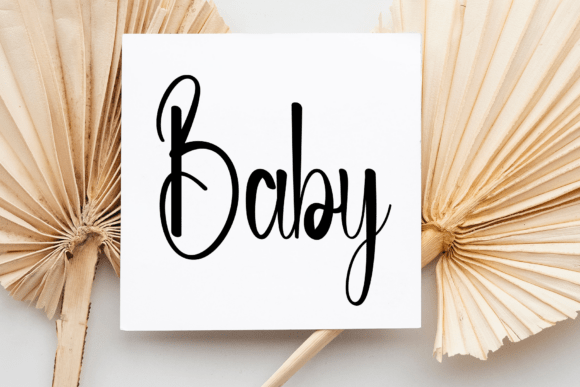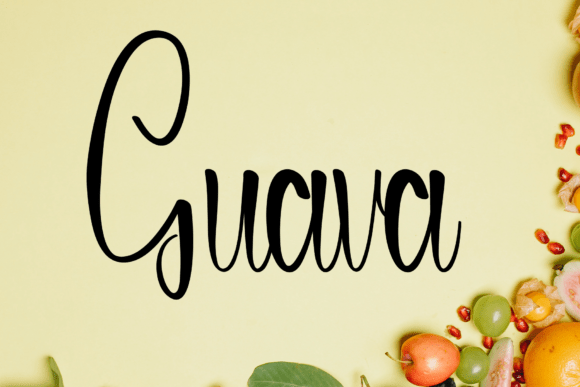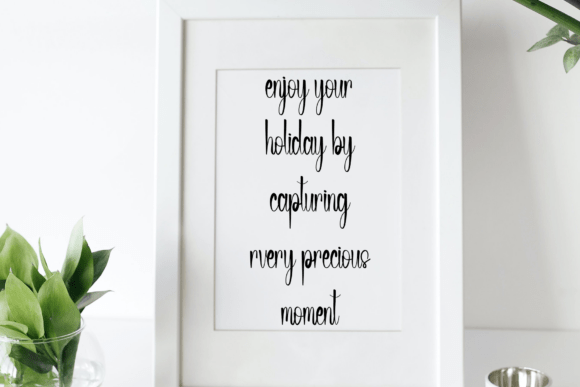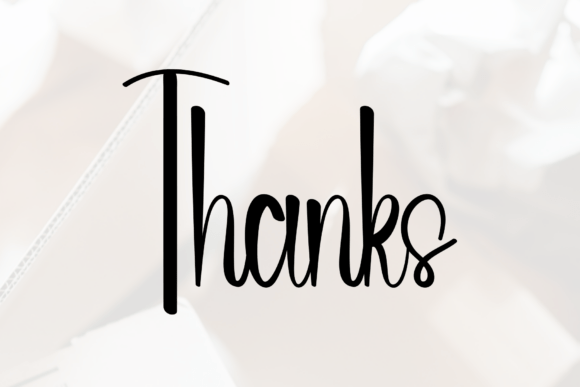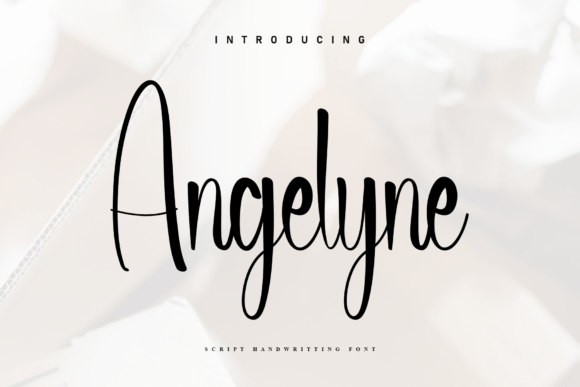
Discover the Charm of Angelyne Font: Elevate Your Designs with a Touch of Handwritten Elegance
Are you on the hunt for a font that adds a personal touch to your designs? Look no further than Angelyne Font, a charming handwritten font that embodies the essence of heartfelt perfection. With its smooth strokes and organic lines, Angelyne evokes a relaxed atmosphere, making it an ideal choice for a wide range of design projects. Whether you’re working on branding, invitations, or social media graphics, Angelyne Font is sure to bring a touch of elegance and sophistication to your creations.
The Characteristics of Angelyne Font
Angelyne Font boasts a unique set of characteristics that set it apart from other fonts. Its smooth, flowing strokes and organic lines give it a natural, effortless feel that’s perfect for designs that require a personal touch. The font’s charming and whimsical nature makes it an excellent choice for projects that need to convey a sense of warmth and approachability.
Angelyne Font’s versatility makes it suitable for a wide range of design projects. Here are just a few examples of how you can use this beautiful font:
• Branding: Use Angelyne Font to create a unique and memorable brand identity. Its elegant and sophisticated feel makes it perfect for logos, business cards, and other marketing materials.
• Invitations: Add a touch of whimsy and charm to your invitations with Angelyne Font. Whether you’re planning a wedding, birthday party, or baby shower, this font is sure to make your invitations stand out.
• Social Media Graphics: Use Angelyne Font to create eye-catching social media graphics that showcase your brand’s personality. From Facebook posts to Instagram stories, this font is sure to help you connect with your audience.
Why Choose Angelyne Font?
With so many fonts to choose from, why should you choose Angelyne Font? Here are just a few reasons why designers and crafters love this beautiful font:
• Unique and Memorable: Angelyne Font’s unique and charming nature makes it a standout choice for designers. Your projects are sure to be remembered with this font.
• Easy to Read: Despite its elegant and sophisticated feel, Angelyne Font is easy to read, making it perfect for body text and other applications where readability is key.
• Highly Versatile: Angelyne Font can be used for a wide range of design projects, from branding and invitations to social media graphics and more.
Tips for Using Angelyne Font
Here are a few tips for getting the most out of Angelyne Font:
• Pair it with Other Fonts: Angelyne Font pairs well with other fonts, especially those with a bold or sans-serif feel. Experiment with different font combinations to find the perfect look for your project.
• Use it for Headings and Titles: Angelyne Font’s elegant and sophisticated feel makes it perfect for headings and titles. Use it to add a touch of whimsy and charm to your designs.
• Experiment with Colors: Angelyne Font looks great in a variety of colors, from bold and bright to soft and pastel. Experiment with different colors to find the perfect look for your project.
Angelyne Font is a charming handwritten font that’s perfect for designers and crafters looking to add a touch of elegance and sophistication to their projects. With its smooth strokes and organic lines, Angelyne evokes a relaxed atmosphere, making it an ideal choice for a wide range of design projects. Whether you’re working on branding, invitations, or social media graphics, Angelyne Font is sure to bring a touch of whimsy and charm to your creations. So why wait? Try Angelyne Font today and see the difference it can make in your designs!